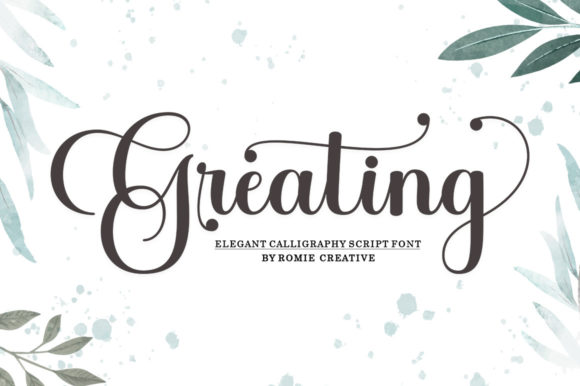
Introducing Greating Font, the perfect choice for all your romantic and lovely design needs! This dazzling and detailed script font, created by Romie Creative, is here to elevate your projects to new heights. With its exquisite beauty and remarkable charm, Greating Font is a must-have addition to your collection.
Are you searching for the best fonts to express your heartfelt emotions? Look no further! Greating Font is specifically designed to add a touch of romance and elegance to each of your love letters, wedding invitations, or any design idea that requires a dash of love. Its captivating curves and graceful strokes will leave you and your recipients astounded.
But that's not all - Greating Font goes above and beyond to ensure your creative journey is smooth and effortless. Thanks to its PUA encoding, accessing all of the glyphs and swashes is a breeze. Let your imagination run wild as you explore the endless possibilities this font has to offer.
With Greating Font, your words will come alive, evoking emotions and leaving a lasting impression. Whether you're a designer, a bride-to-be, or simply someone who appreciates beauty, this font is the perfect companion for your expressive endeavors. Its versatility knows no bounds, making it suitable for various projects and themes.
Why settle for ordinary when you can have extraordinary? Let Greating Font be the secret ingredient that sets your work apart from the rest. Infuse your creations with a touch of romance, sophistication, and irresistible charm.